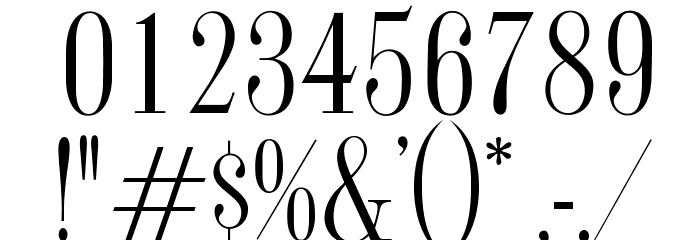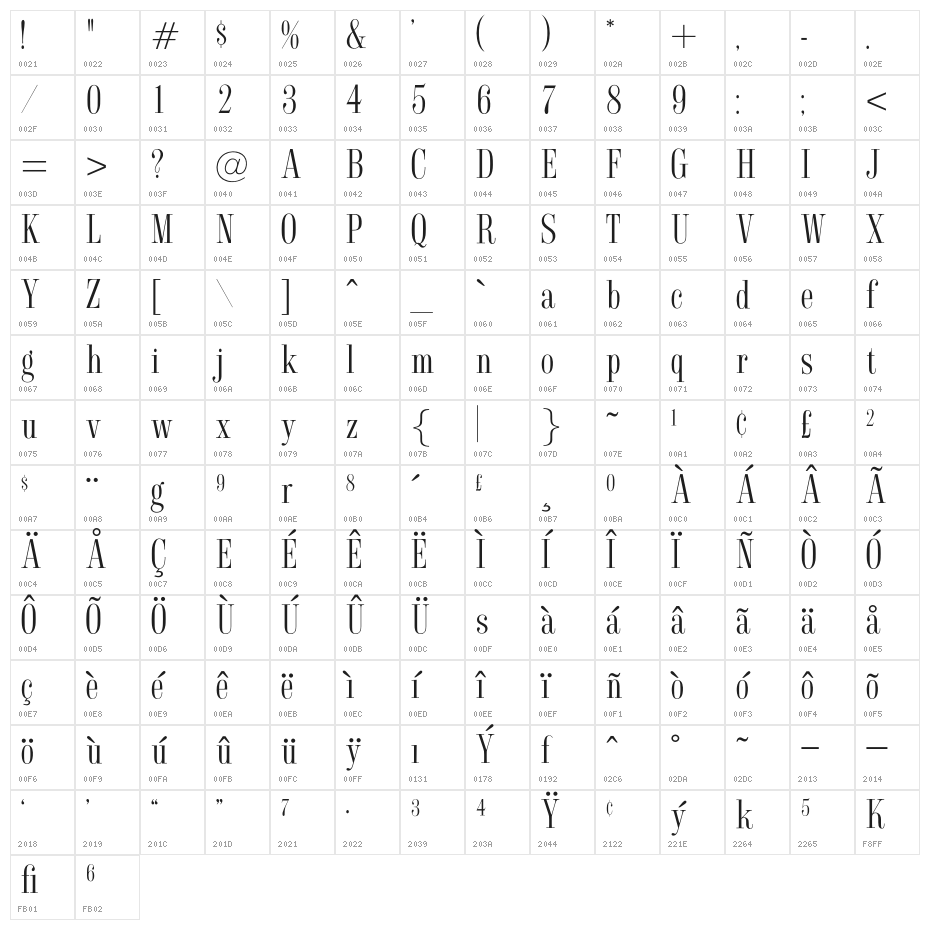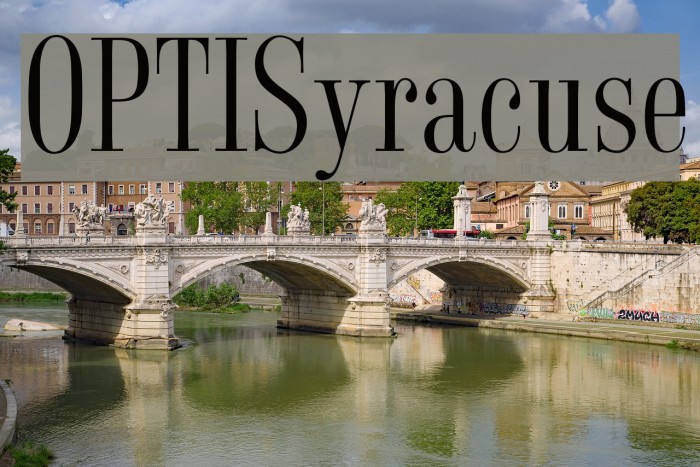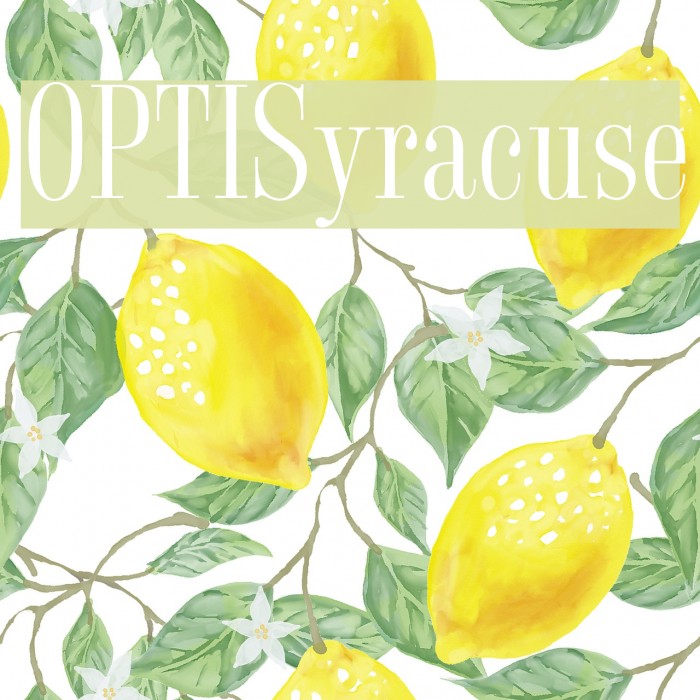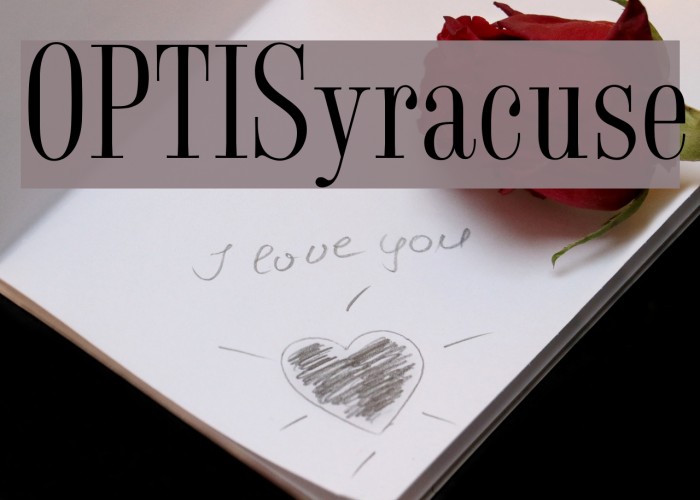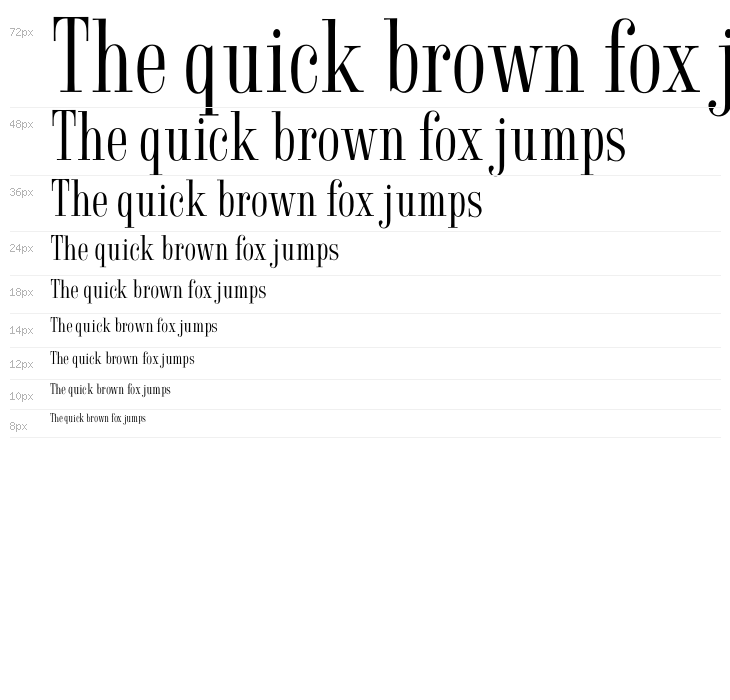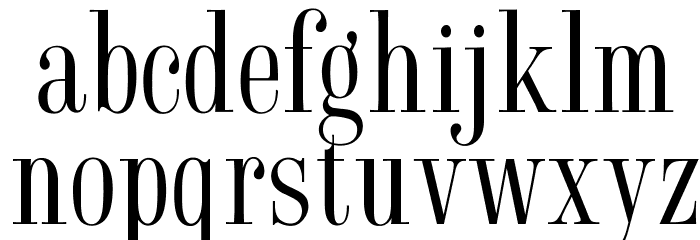
OPTISyracuse Font
OPTISyracuse Description
This font exhibits a refined and elegant serif style, characterized by its tall, narrow letterforms and high contrast between thick and thin strokes. The uppercase letters are stately and elongated, while the lowercase letters maintain a consistent and harmonious flow. The numerals are distinct and clear, with a classic touch that complements the overall sophisticated appearance. The special characters are well-integrated, maintaining the font's cohesive aesthetic. This typeface exudes a timeless charm, making it suitable for a variety of formal and professional applications.
| Proposed Projects | Ideal for editorial design, book covers, formal invitations, and luxury branding. |